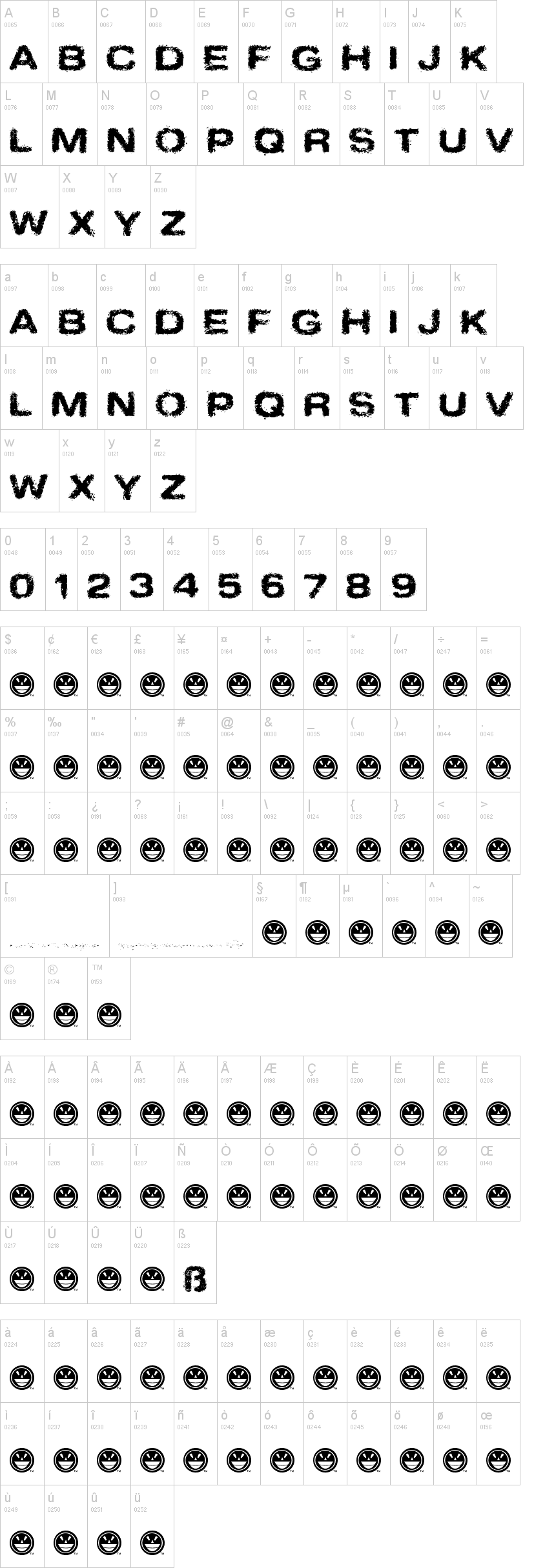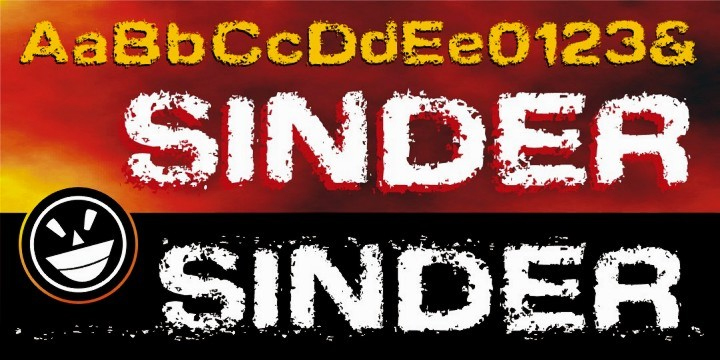
Note of the authorIts extended. Somewhat. Its fully kerned. Thats awesome! And it is rubbed down to the nub. Whuh??? That means its highly distressed, manually eroded on my work bench. Tortured further to open the wounds using my bitmap editor. Tweaked lovingly and built up to even higher standards of distortion in my vector program. The end result is a font called Sinder.
I've even included an ash effect. Using the bracket or brace left gives you ashes from left to right as you type your text. Finish your text with ash terminals by typing the bracket or brace right. But be careful. This font is a heavy duty downloader. Make sure all your programs are up to the task, especially before you go converting to vectors. This is a limited freeware version. If you opt to purchase the commercial version, it includes a complete character set and lowercase characters.